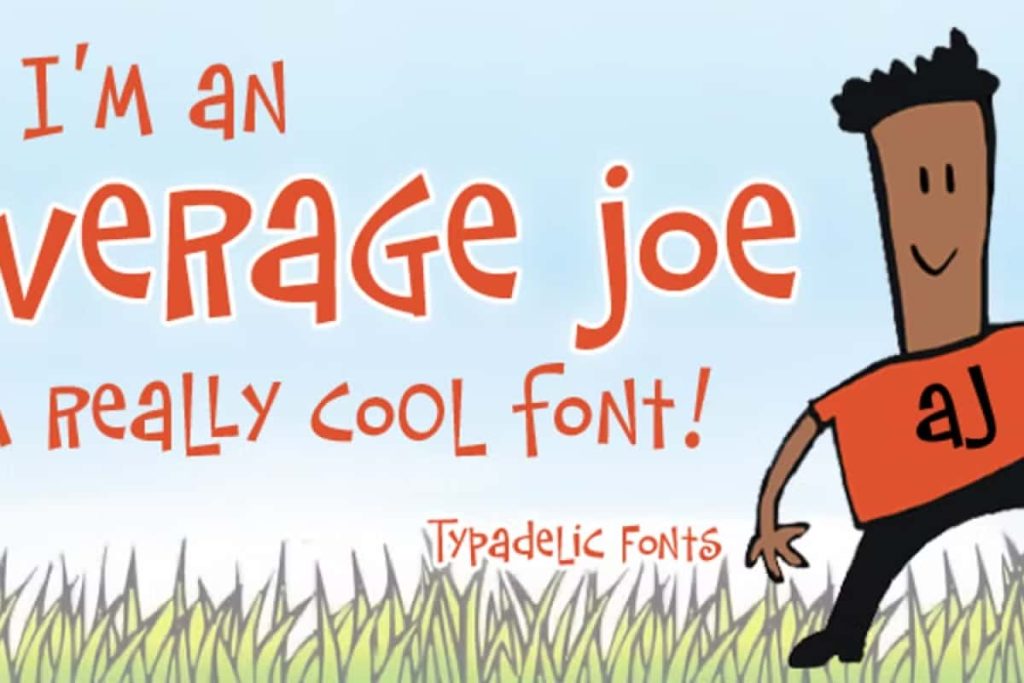
Average Joe is a hand-drawn display font inspired by mid-20th century typestyles. It’s characterized by its bouncy and uneven letterforms, giving it a whimsical and playful feel.